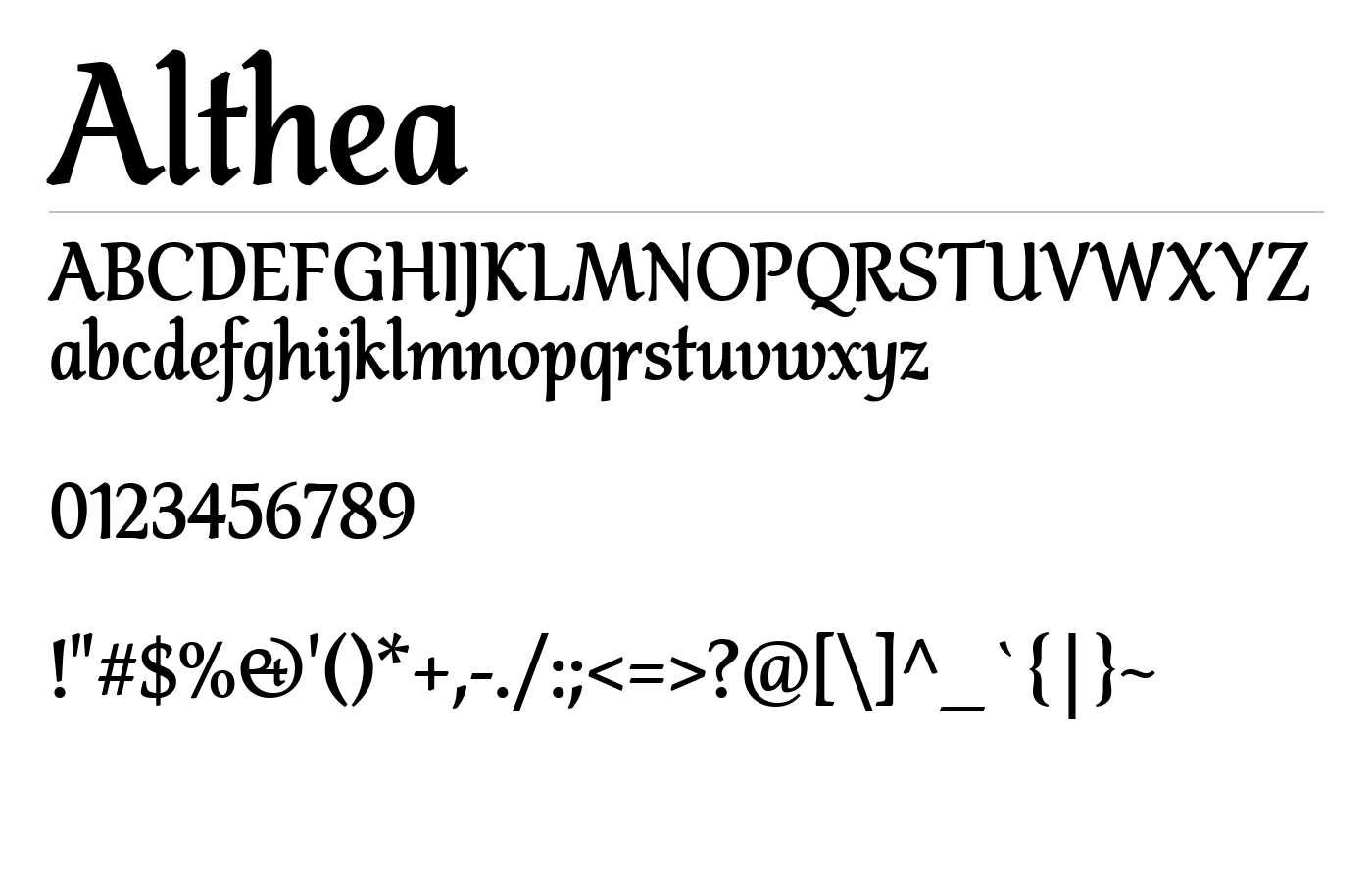
Althea is a serif font with a unique blend of traditional and playful characteristics, featuring medium stroke contrast and slightly curved, bracketed serifs that give it a hand-crafted feel. Its elegant letterforms balance classic proportions with subtle, quirky details, making it ideal for use in creative branding, editorial design, and projects that seek a warm, approachable yet refined tone. This font works well for headlines and logos where personality and readability are both important.
Althea Font
About Althea Font
| Designer | Pawel Burgiel |